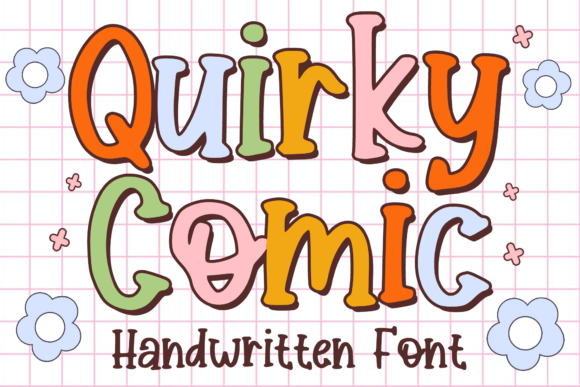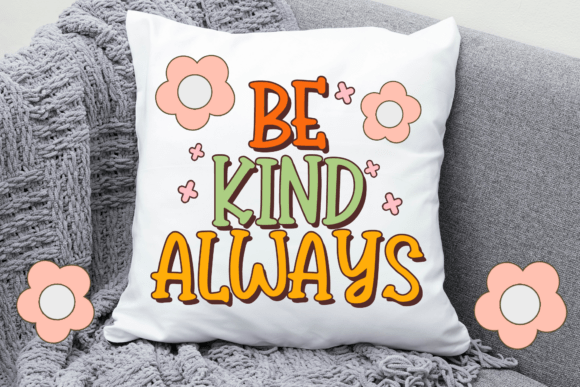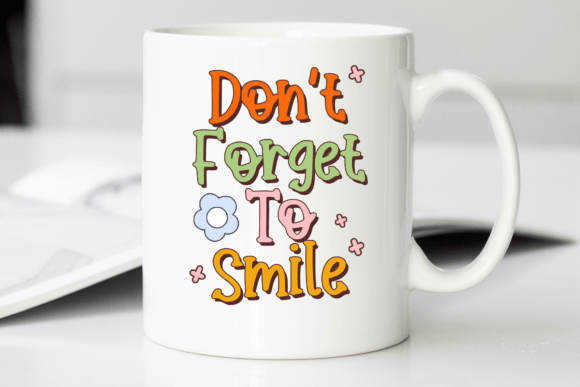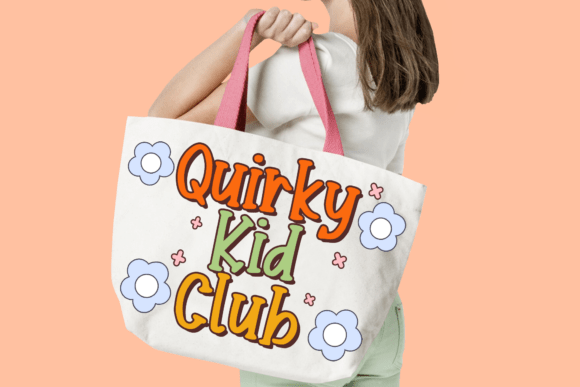
Quirky Comic Font
About the Quirky Comic Font
Discover the charm of Quirky Comic Font. This font is a perfect blend of modern aesthetics and classic appeal. Quirky Comic is a playful, versatile and cute comic font that you can use for many designs themes. It will elevate a wide range of design projects to the highest level. You can use this font for many design ideas such as stickers, t-shirt designs, amazing logo designs, magazine or book covers, comics, cartoon drawings, daily typing, and many more. This font will add a super cool touch to your designs!
Its playful energy makes it ideal for headlines, short text blocks on posters, and branding for children’s products or playful businesses. It also works well for packaging that targets a younger demographic or emphasizes fun and approachability. However, its informal style is unsuitable for body text, long-form content, or user interfaces where readability is paramount.
For optimal visual harmony, pair Quirky Comic with a clean sans-serif like Open Sans for body copy or a classic serif like Garamond for a sophisticated contrast. A geometric sans-serif like Futura could also create a visually striking combination, balancing the font’s organic curves with sharp lines.
The overall personality is best described as lighthearted and friendly, exuding a sense of fun and approachability, perfect for projects aiming for a whimsical and engaging aesthetic.
Quirky Comic Font Usage Examples
Quirky Comic Font Example